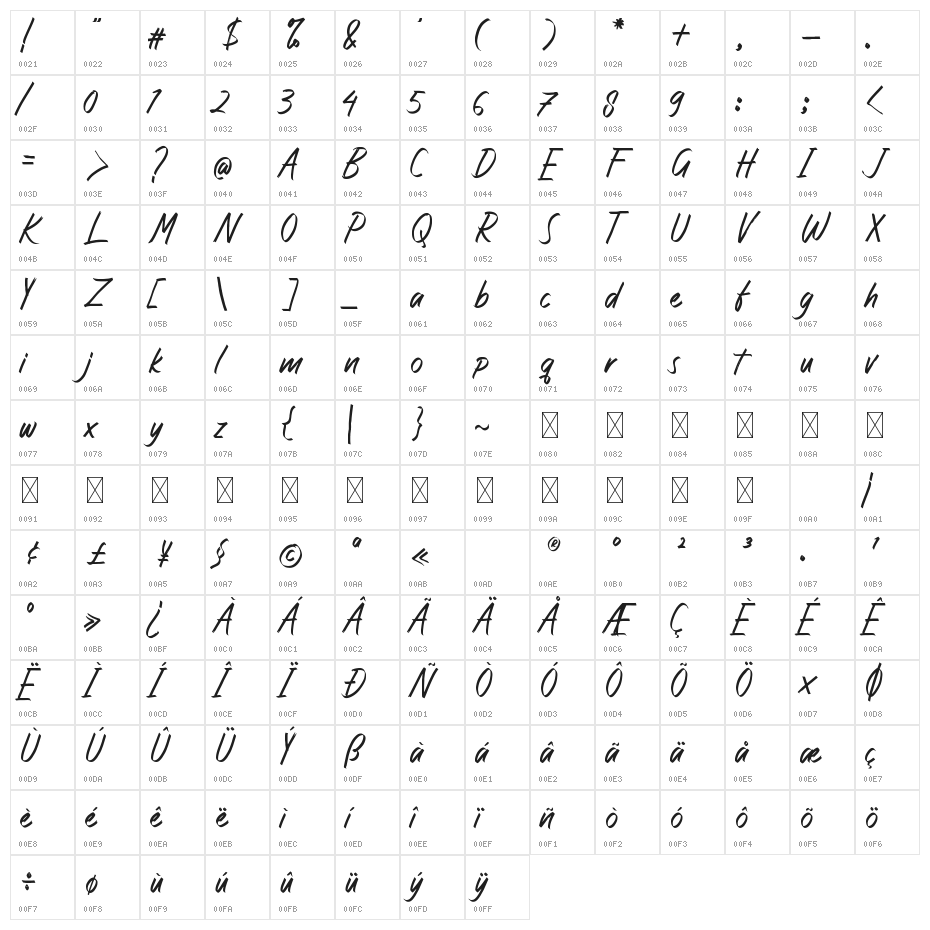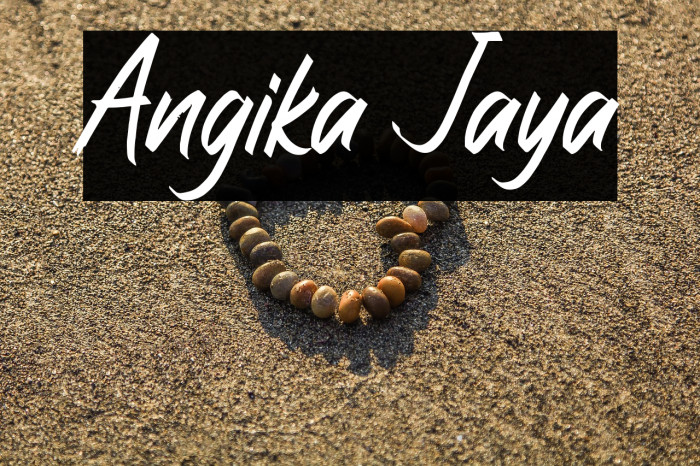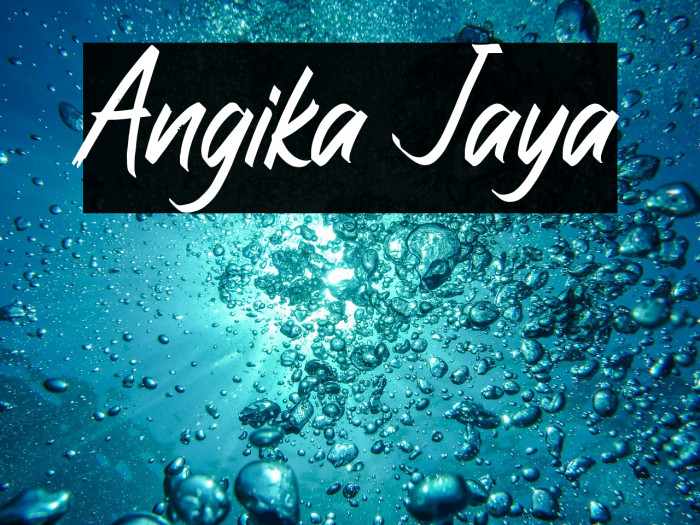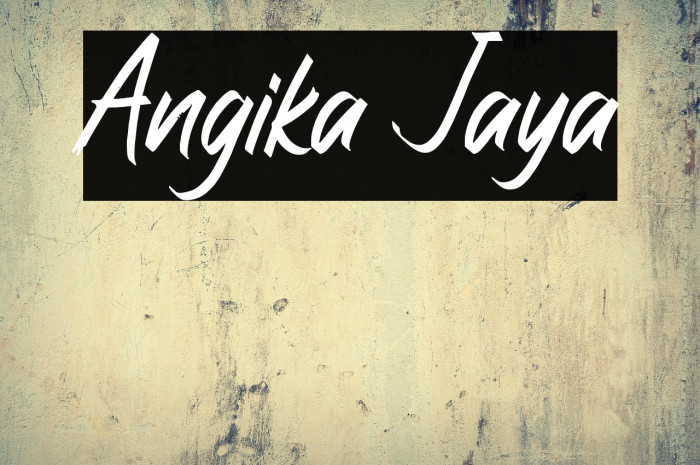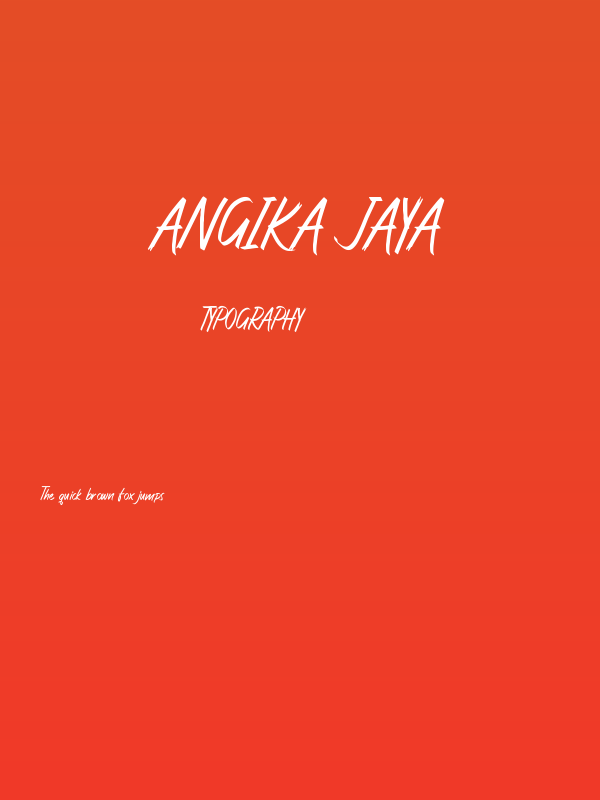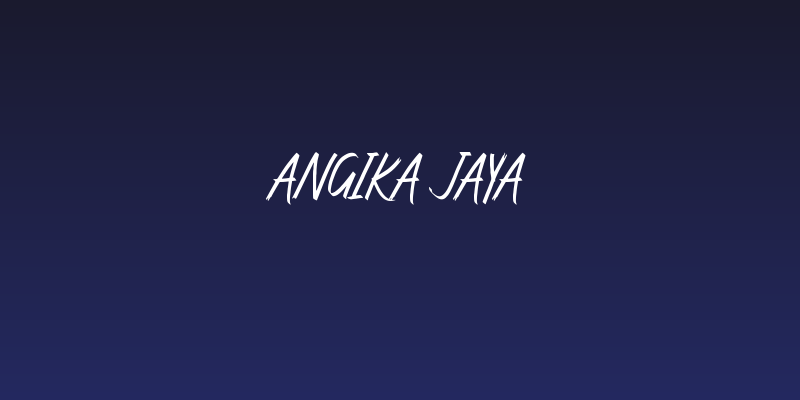
Angika Jaya Font
Angika Jaya Description
This font exhibits a dynamic and energetic script style, characterized by its fluid, handwritten appearance. The letters are slightly slanted, giving a sense of motion and spontaneity. The strokes vary in thickness, adding a lively and informal touch. The uppercase letters are bold and prominent, while the lowercase letters maintain a consistent flow. Numbers and special characters are crafted with the same expressive style, ensuring a cohesive look across all elements. This font's playful yet sophisticated design makes it suitable for creative projects that require a personal touch.